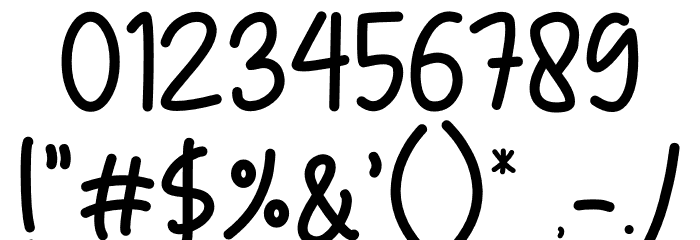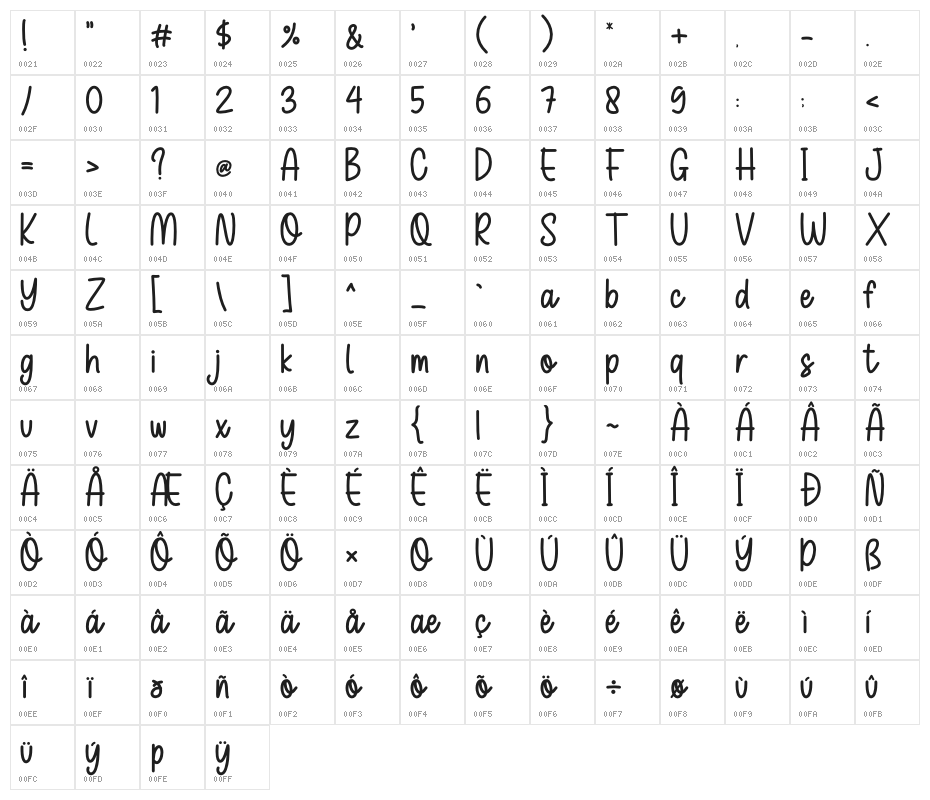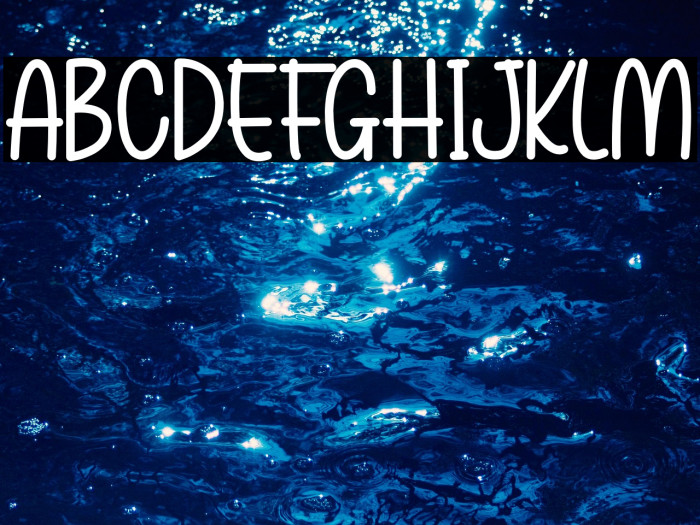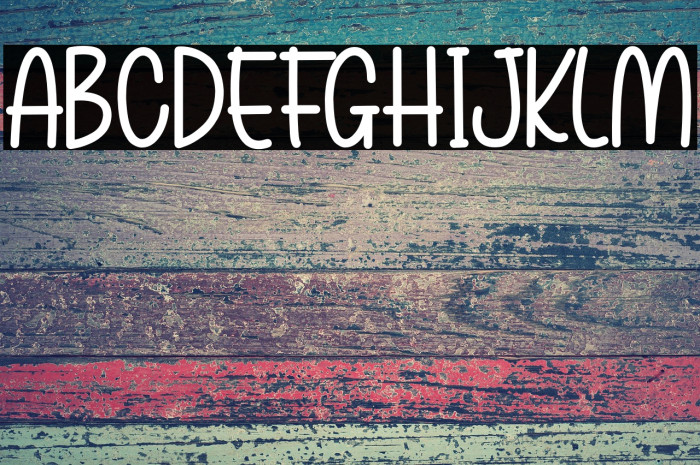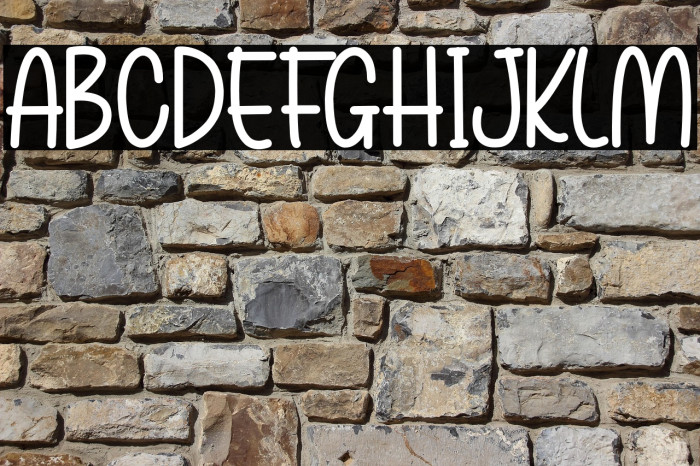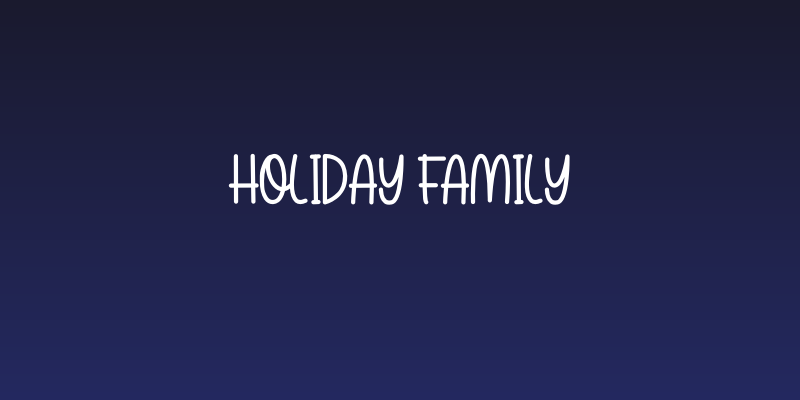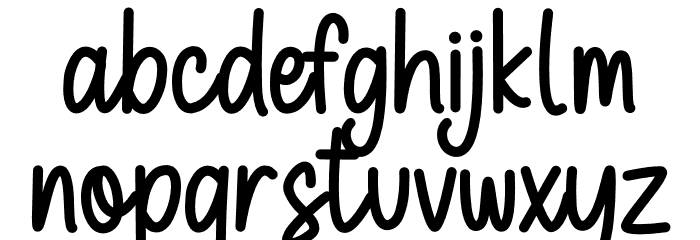
Holiday Family Font
Holiday Family Description
This font features a playful and casual handwritten style, characterized by its smooth, rounded edges and consistent stroke width. The letters are slightly elongated, giving them a whimsical and friendly appearance. The uppercase and lowercase letters maintain a harmonious balance, while the numerals and special characters are crafted to match the overall aesthetic. This font exudes a sense of warmth and approachability, making it ideal for projects that require a personal touch. Its legibility is maintained across different sizes, ensuring versatility in various design contexts.
| Proposed Projects | Ideal for greeting cards, invitations, children's books, and casual branding projects. |